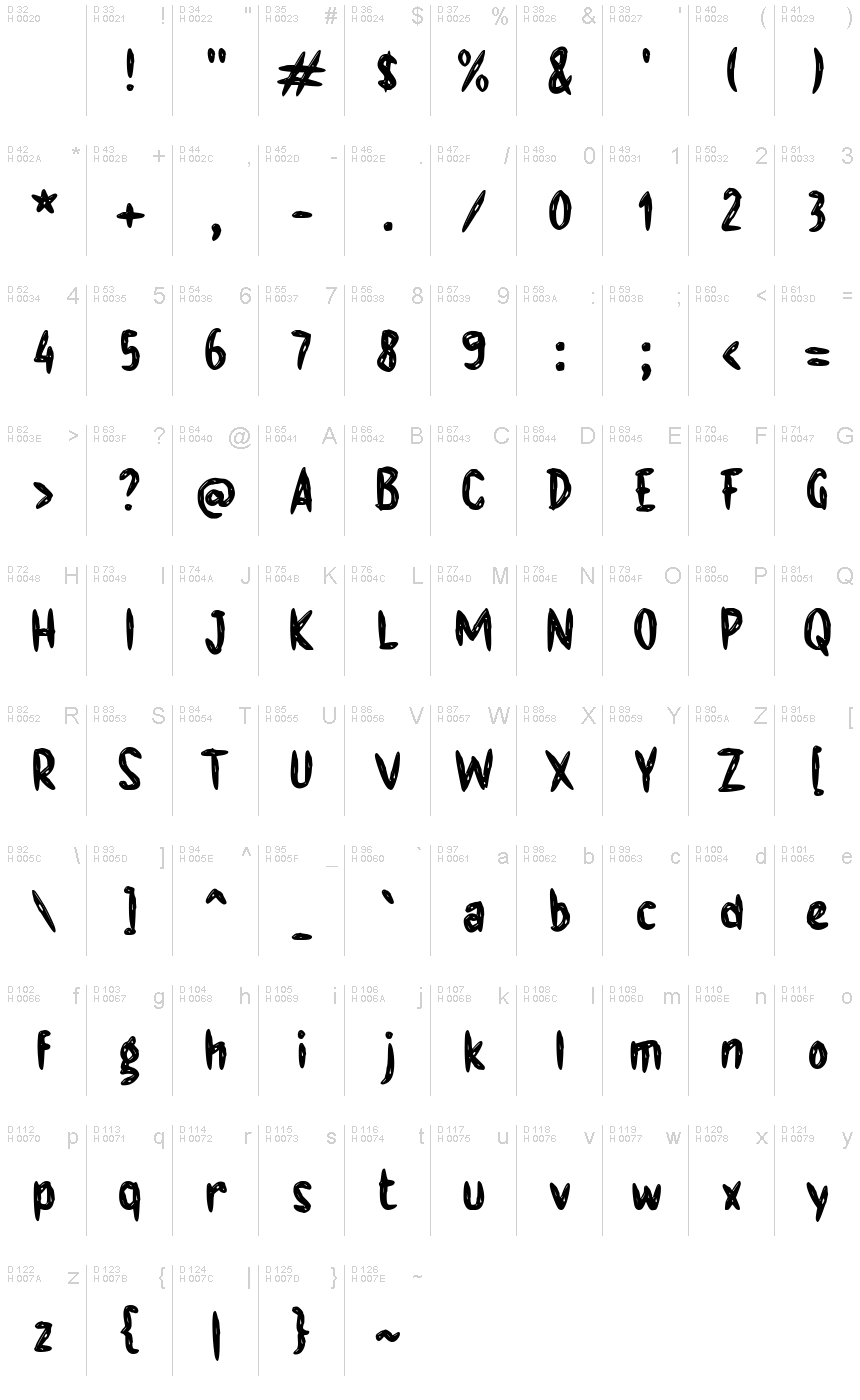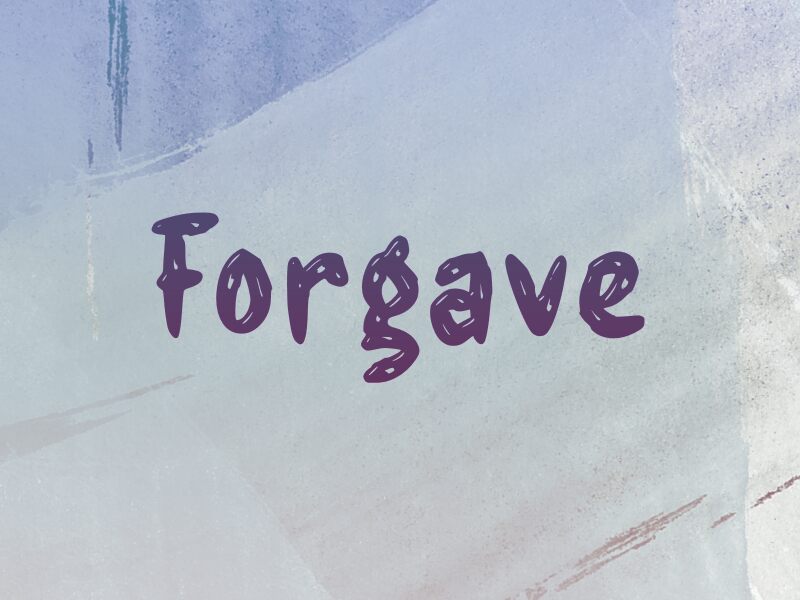
Forgave
Forgave, crafted by the imaginative wep, is a display font that exudes character and personality. With its bold strokes and playful contours, it strikes a balance between creative flair and legible structure. Each letter seems to dance with an energetic rhythm, making it perfect for capturing attention in headers, posters, and any space where a touch of whimsy is desired.
Its unique aesthetic makes it ideal for branding projects that aim to stand out or editorial designs that seek to add an unconventional twist. Whether used for artistic event promotions or avant-garde magazine layouts, Forgave invites viewers into a world where type isn't just seen—it's experienced.